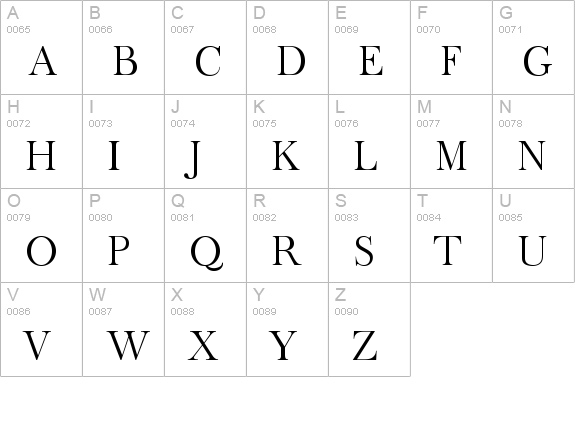
Oldbaskerville-Light is a refined, elegant variant in the Oldbaskerville typeface family \xE2\x80\x94 well suited to elegant body text, refined sub-headings, and luxury branding.
Oldbaskerville-Light is a classic and elegant serif font that exudes sophistication and charm. With its clean lines and timeless appeal, this font is a perfect choice for projects that require a touch of refinement. The delicate serifs and graceful letterforms of Oldbaskerville-Light make it a versatile typeface that can be used for a variety of design applications. Best of all, Oldbaskerville-Light is available for free download at FontsMarket.com, making it accessible to designers and creatives looking to add a touch of elegance to their projects without breaking the bank. Whether you're designing a wedding invitation, a logo, or a magazine layout, Oldbaskerville-Light is sure to elevate your design and give it a polished, professional look. Download Oldbaskerville-Light today and add a touch of timeless beauty to your next project.